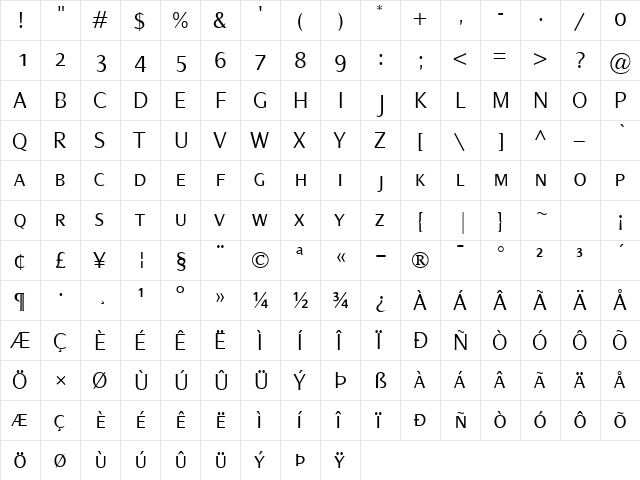
Dialog Light SmallCaps Regular
Design Context for Dialog Light SmallCaps Typeface
Dialog Light SmallCaps is a composed and adaptable typeface that performs quietly and consistently across a wide range of design contexts. Its slender proportions lend an understated elegance to any composition.